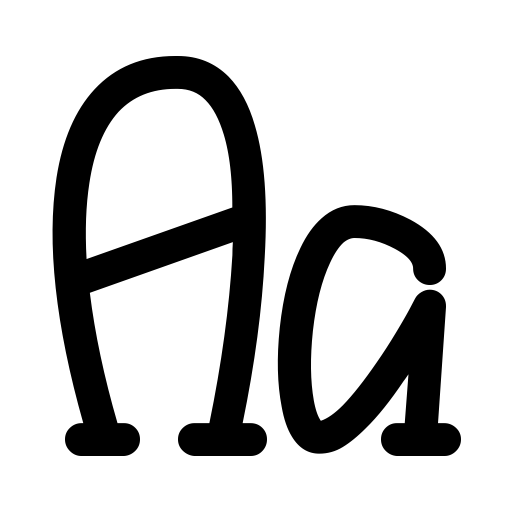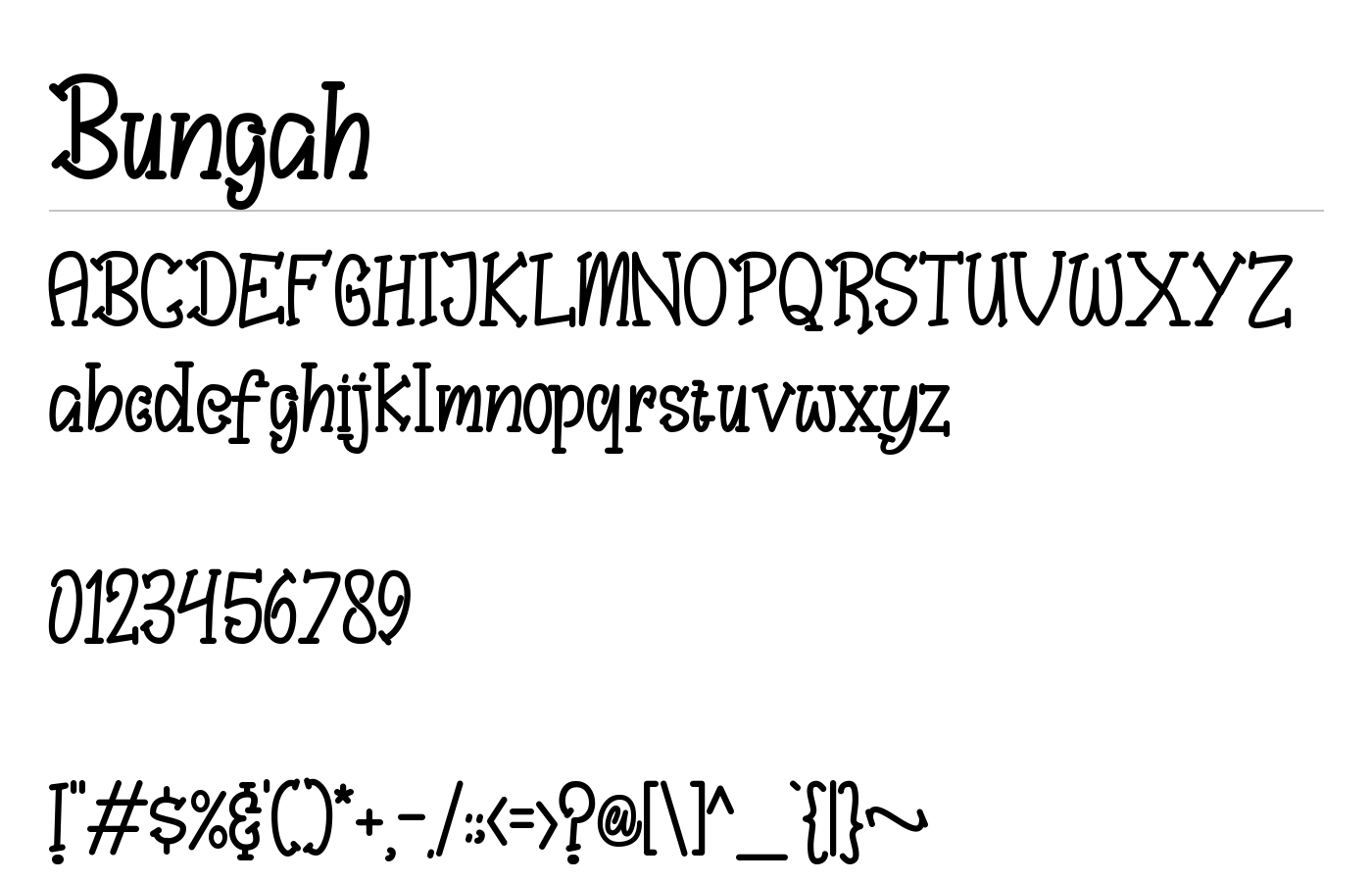
Bungah is a playful, hand-drawn serif font with quirky, uneven strokes and unique decorative terminals that give it a casual, whimsical feel. Its tall x-height and light, narrow letterforms make it ideal for fun, informal designs such as children’s books, creative branding, or inviting headlines. This font works well when you want to add a touch of personality and charm without losing readability.
Bungah Font
About Bungah Font
| Font family | Bungah Font |
| Designer | Nur Solikh |